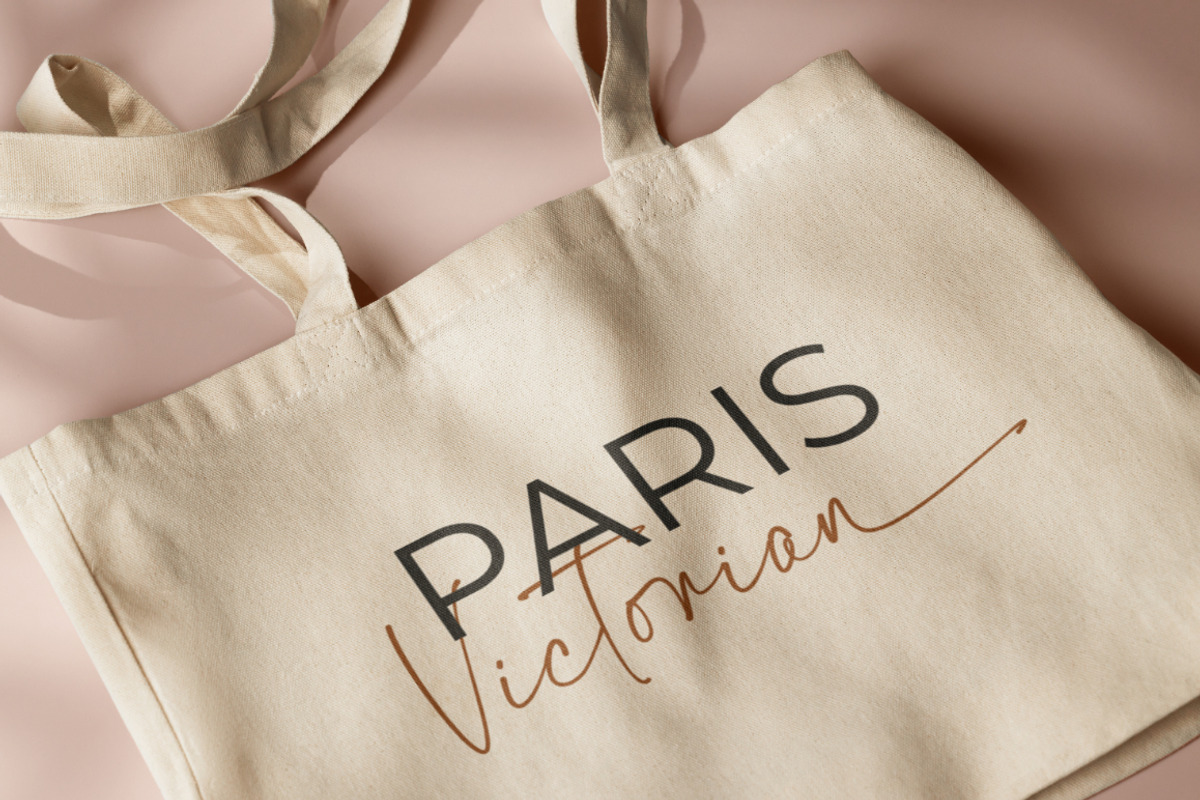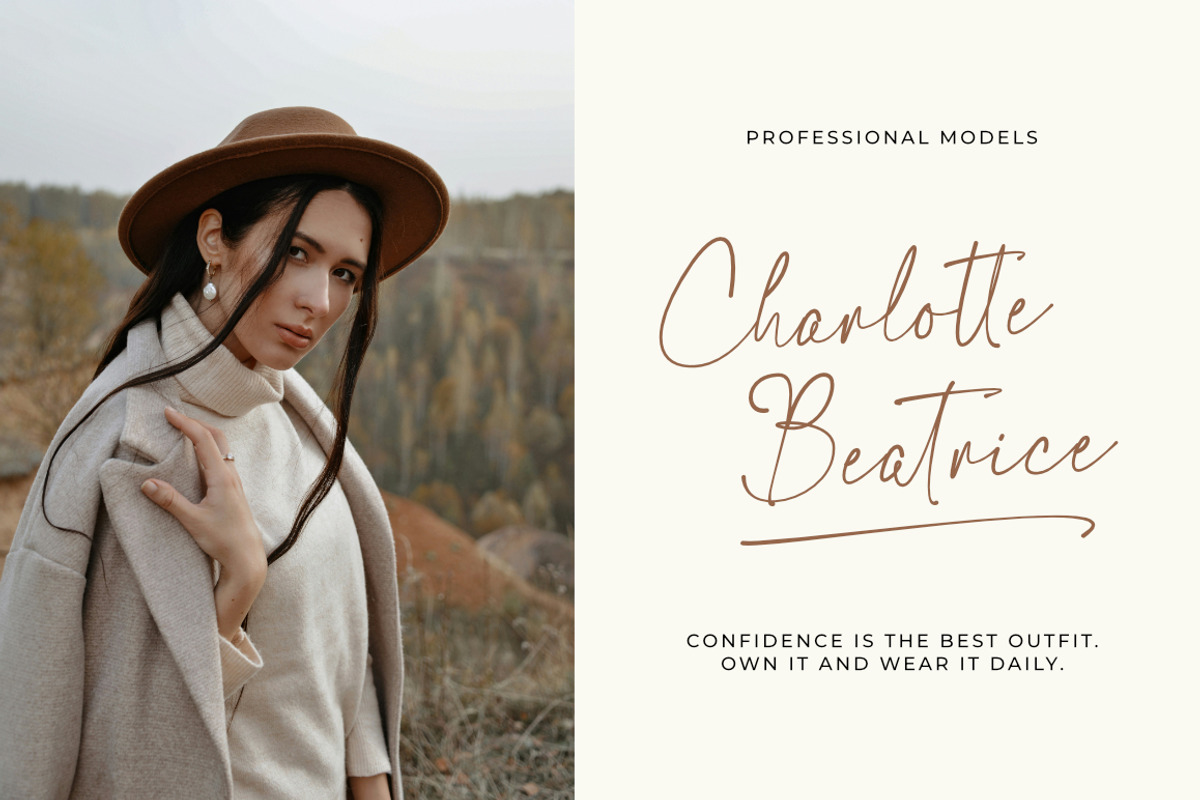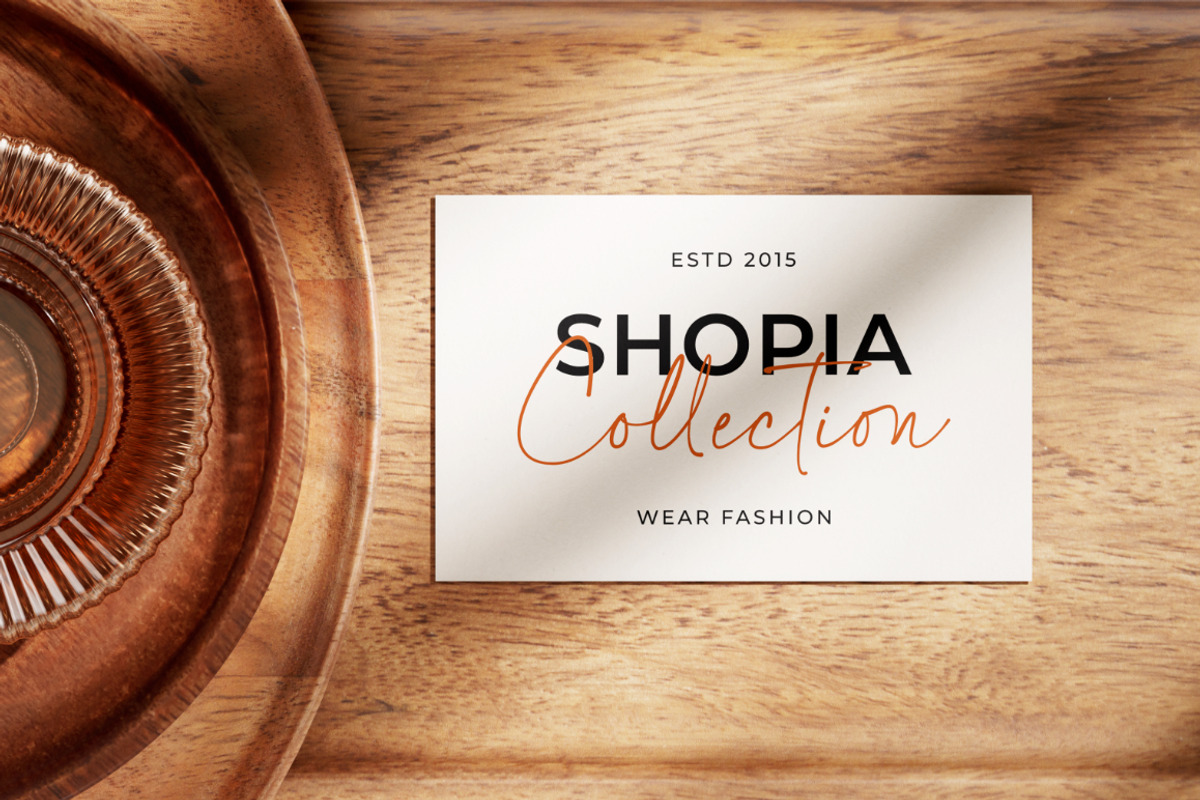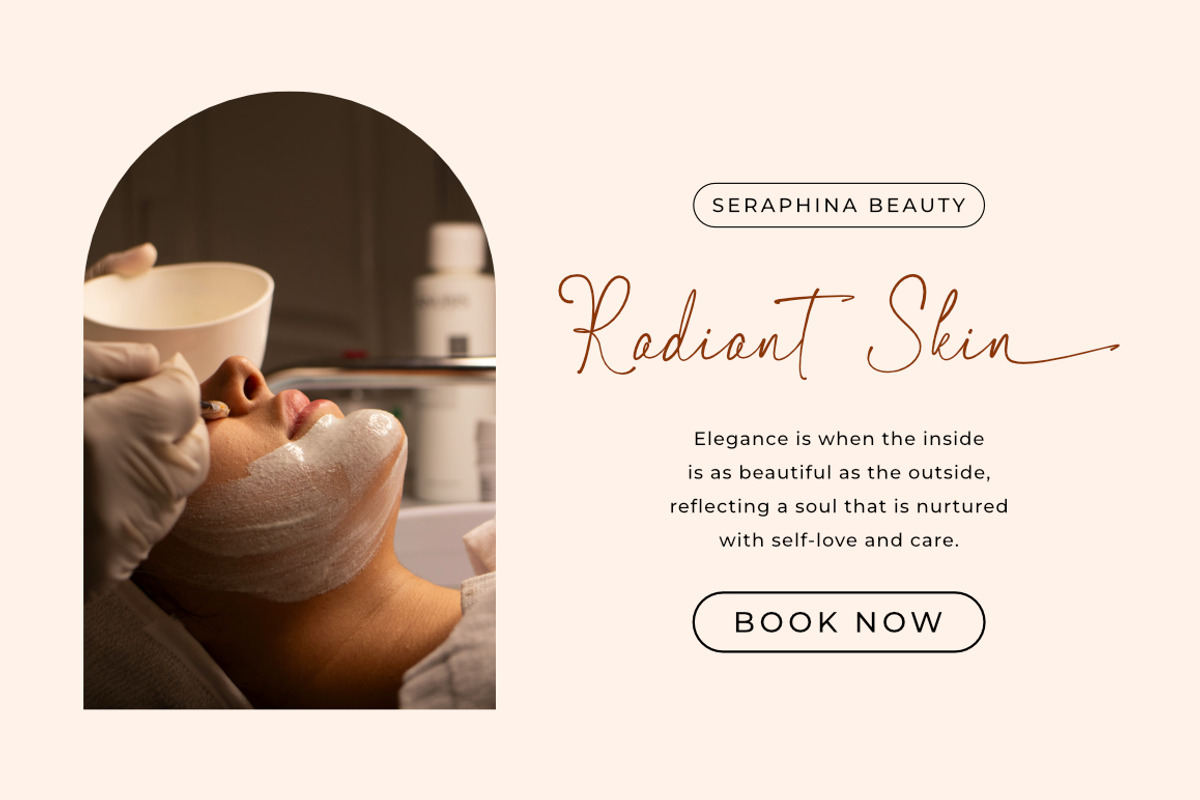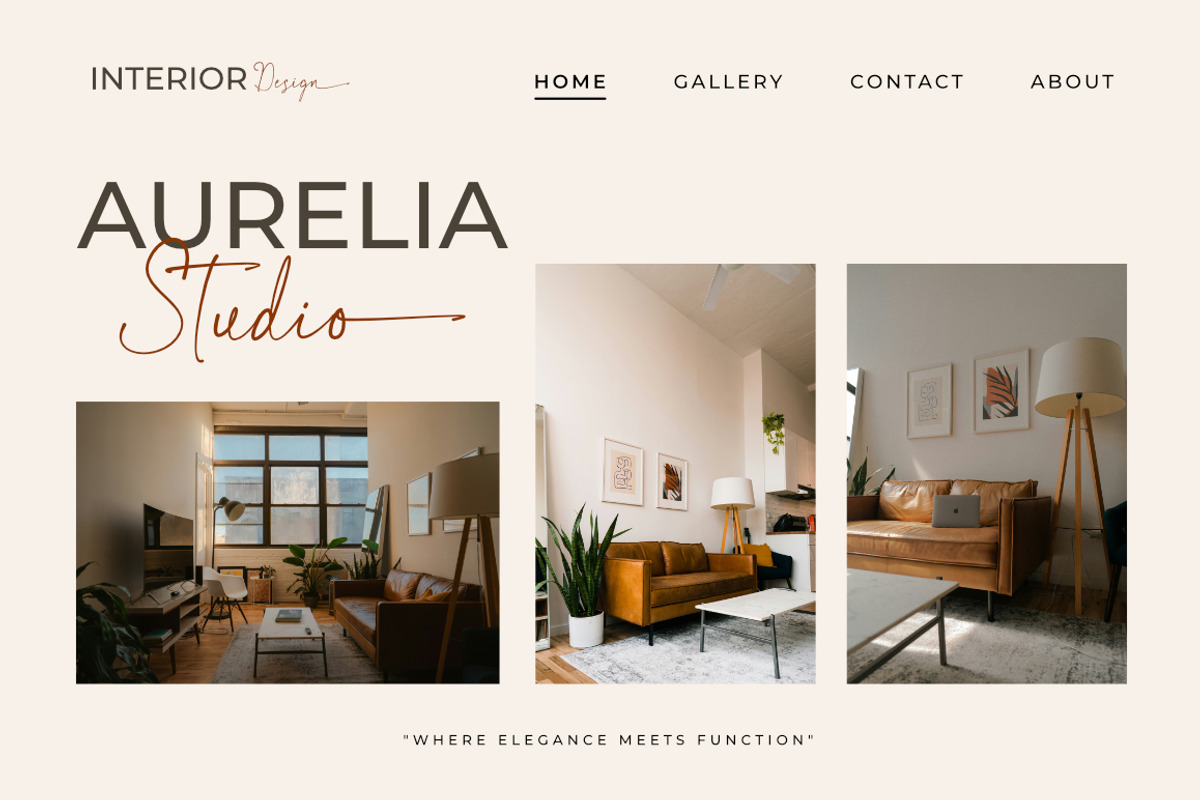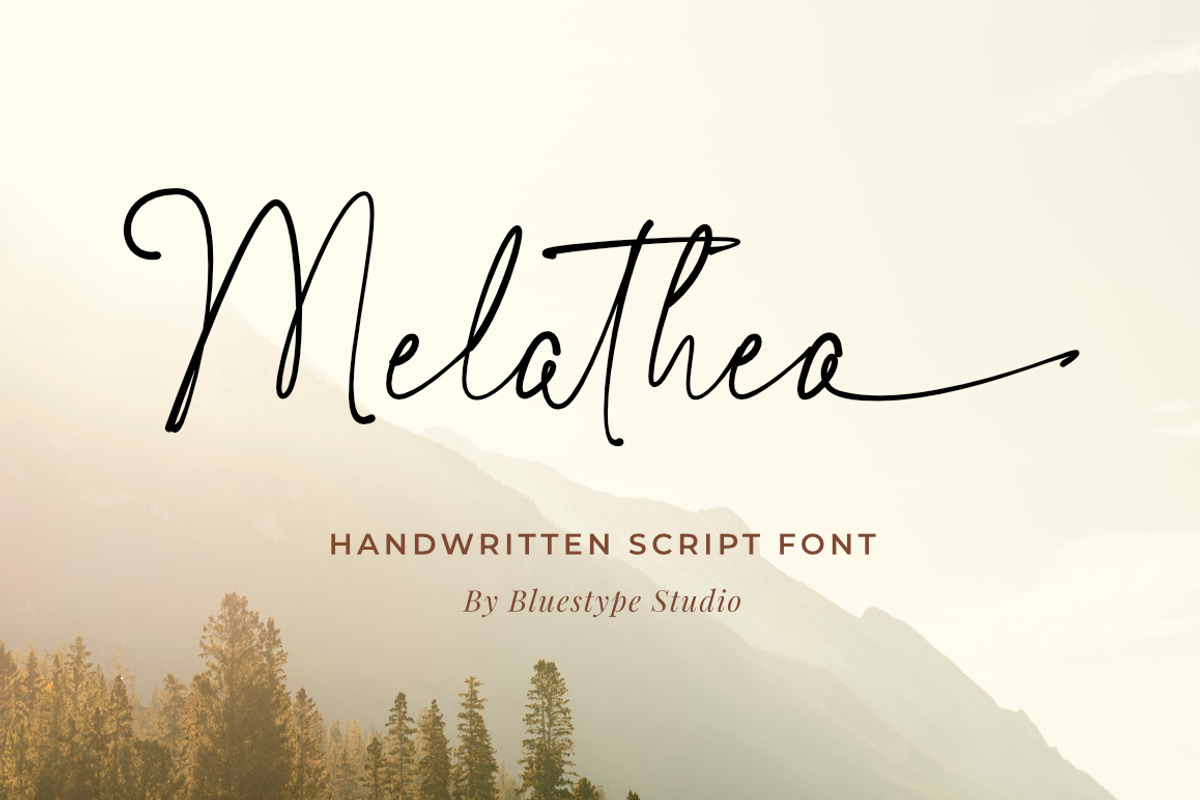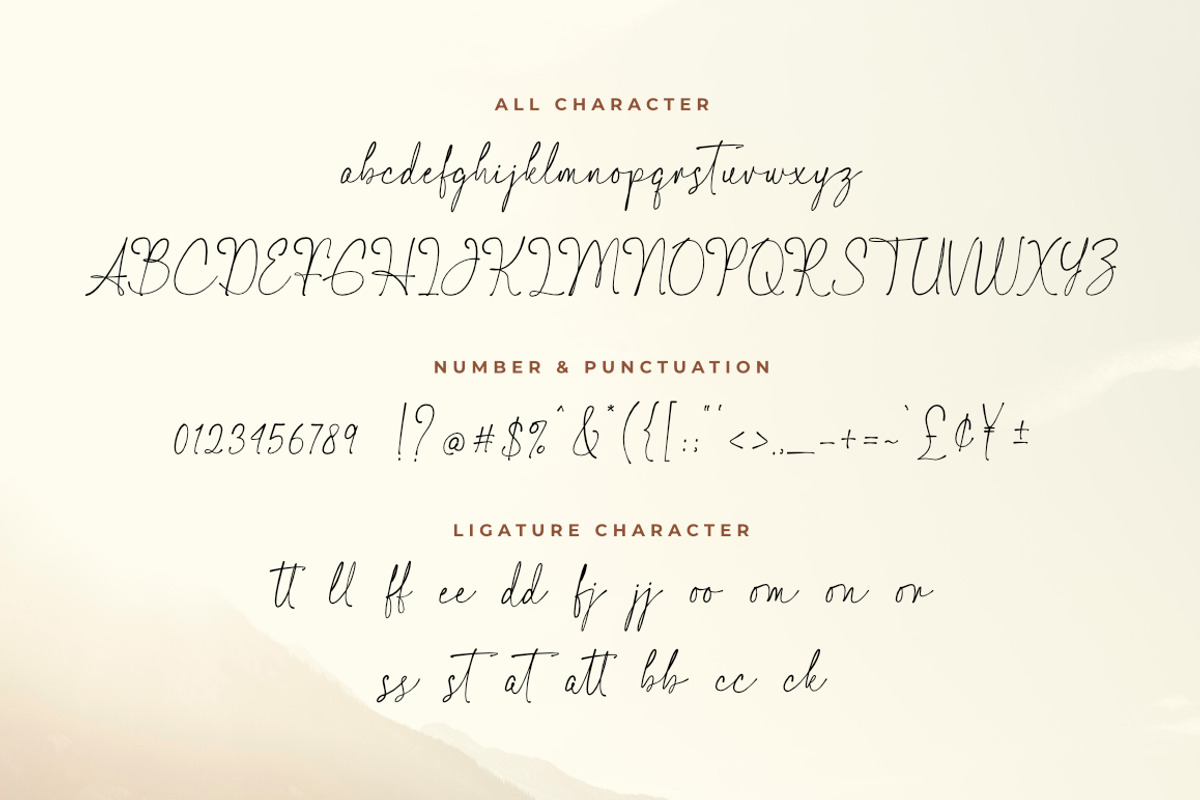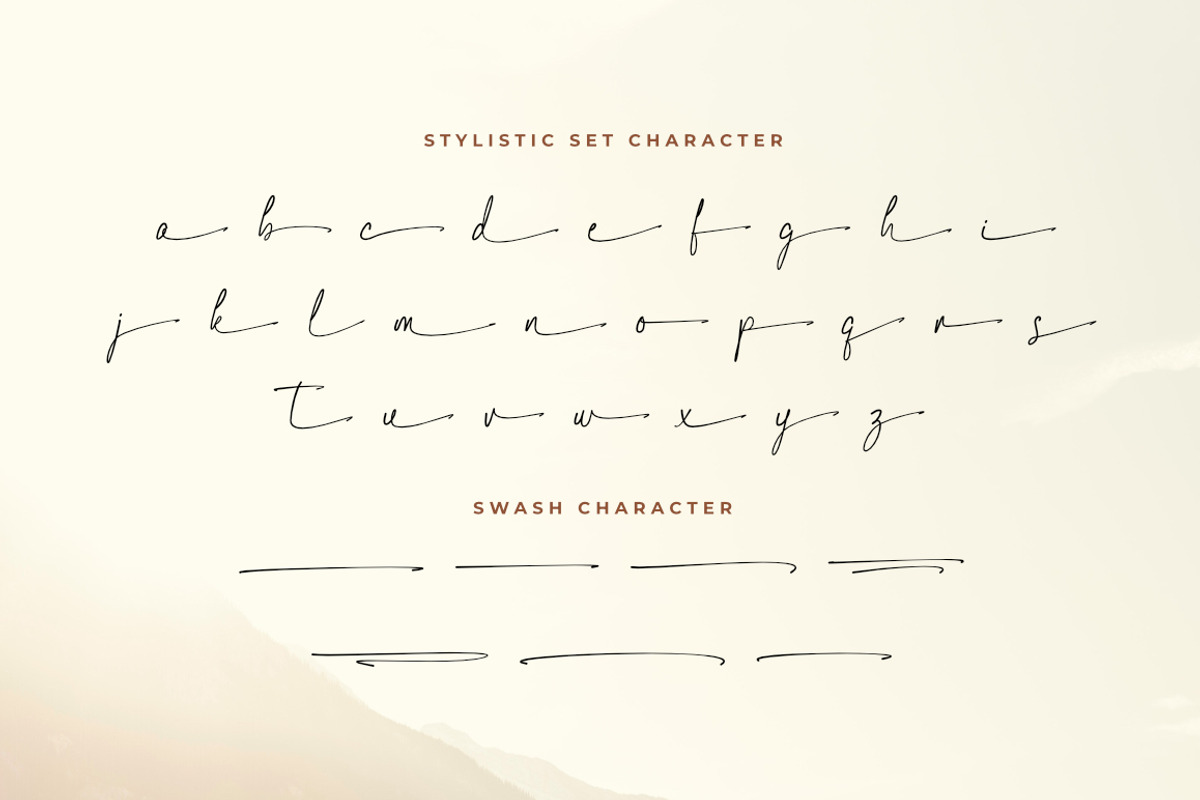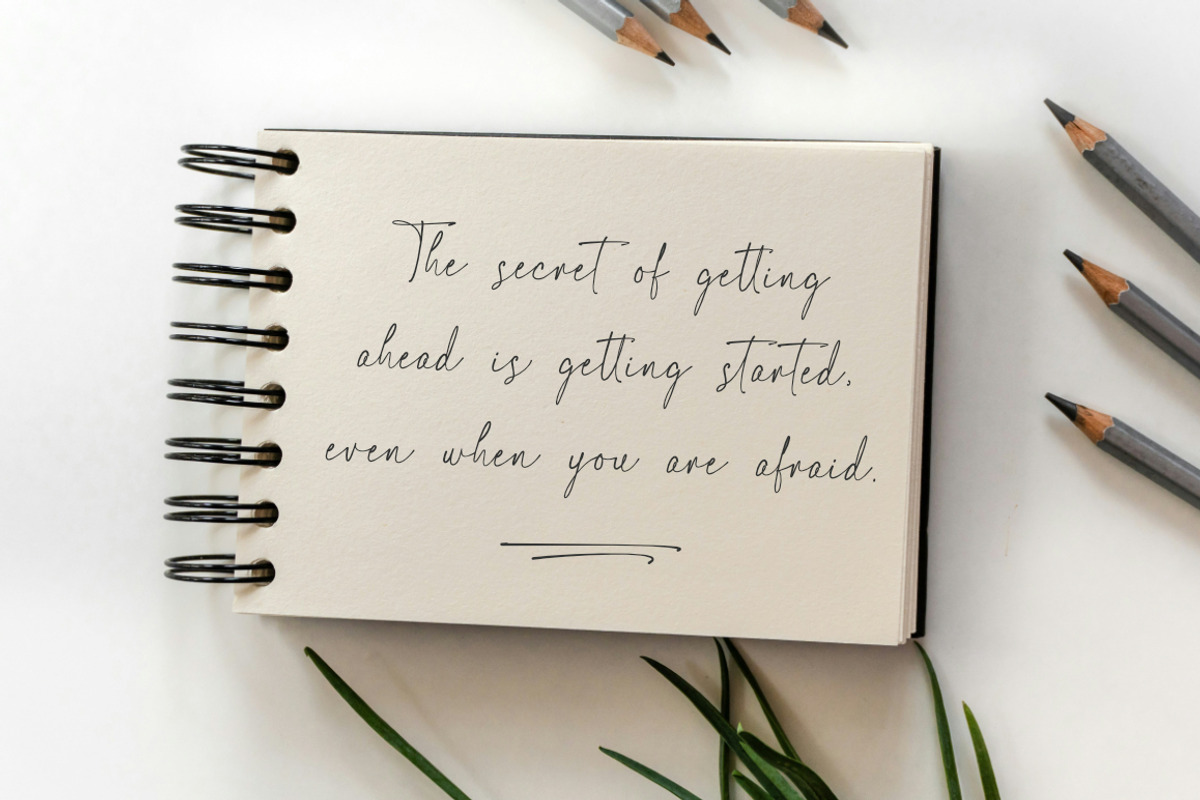
Melathea - Handwritten Script Fonts
Meet Melathea, a beautifully fluid handwritten script font crafted for modern signatures, greeting cards, and elegant branding. Get instant access to seamless curves and timeless style today.
Perfect For: Branding & Logos, Wedding Invitations, Packaging, Product Labels, Magazine Layouts, Book Covers, Instagram Quotes, Watermarks, and Digital Banners.
Ligature Character
Stylistic Set
Swash Character